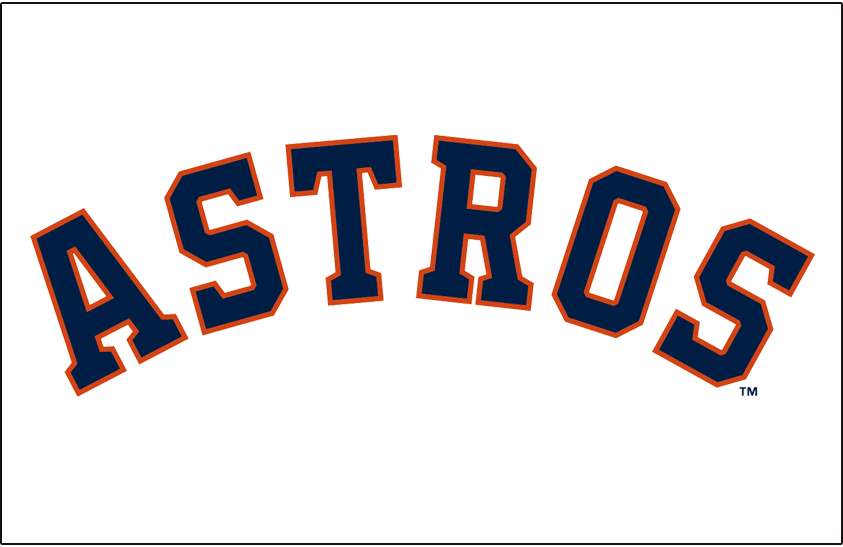
Houston Astros Letter Font
Houston Astros Letter Font. Previous font houston astros font; You can follow the link above to buy a.
And Light Orange Colors And A Circular Object With An Orange Star At Its Center And A Capital Letter H Written Over It.
We Generally Don't Use Fonts As Stylised Logos.